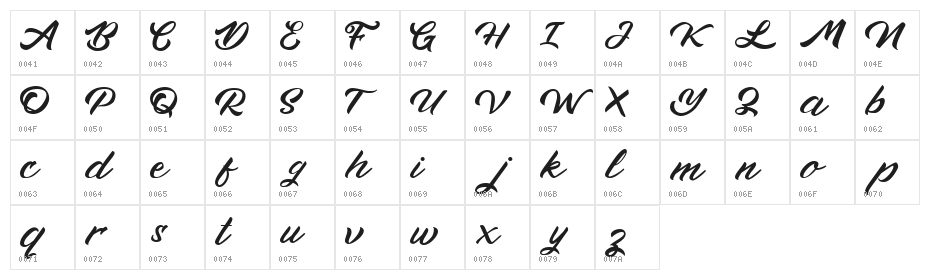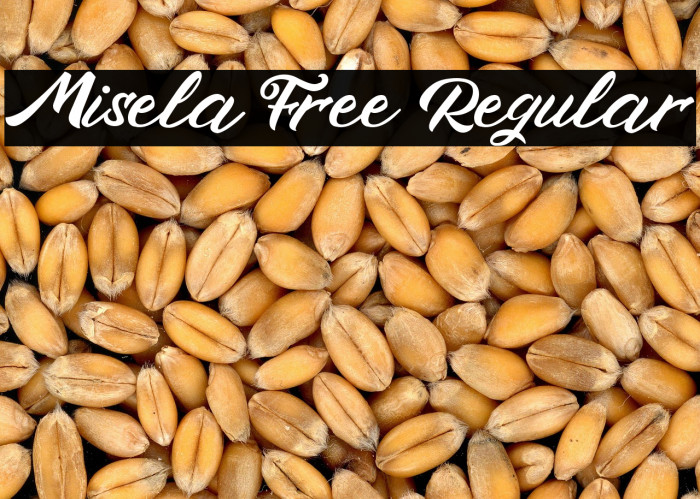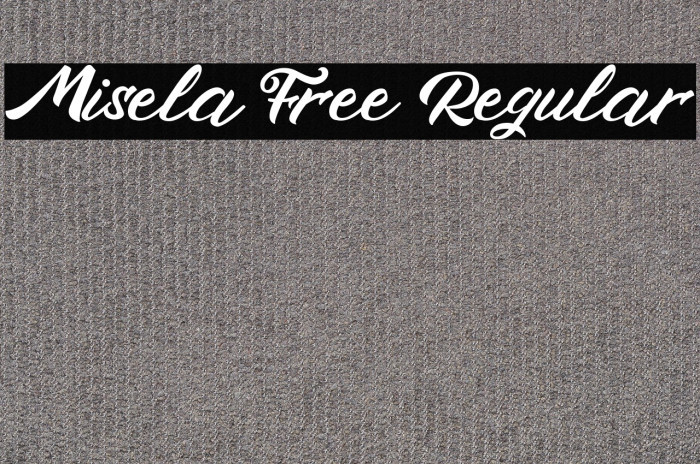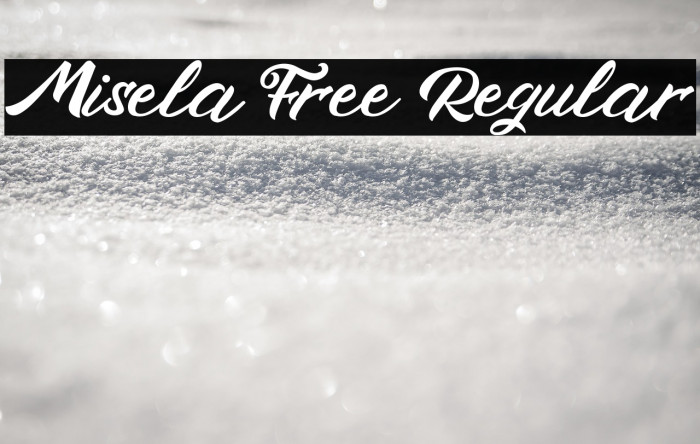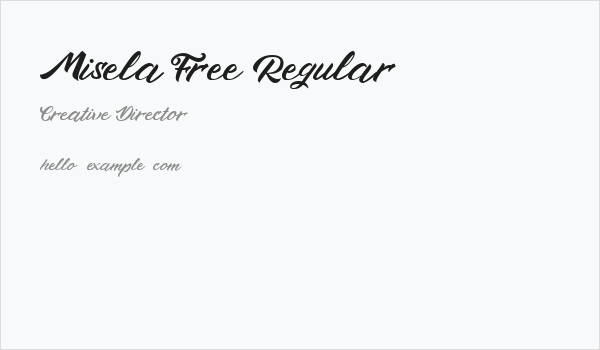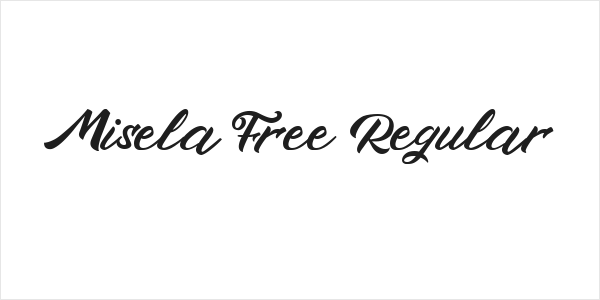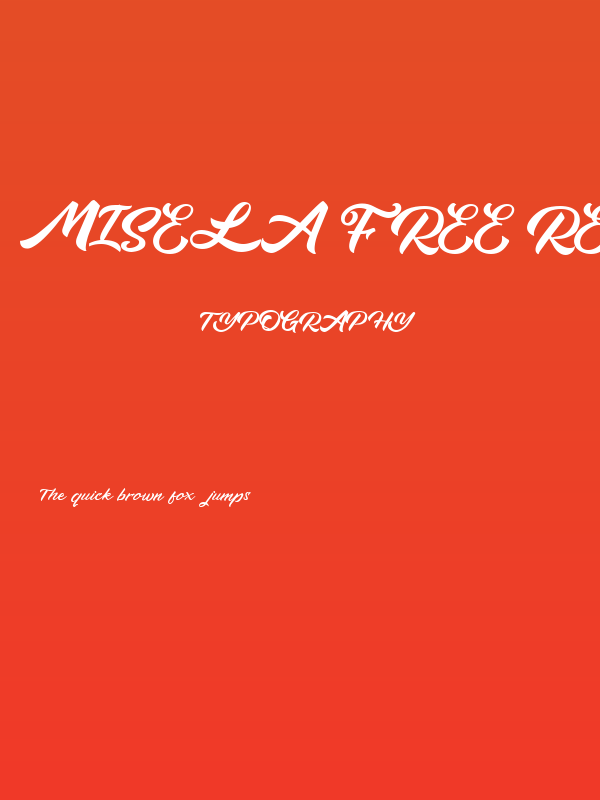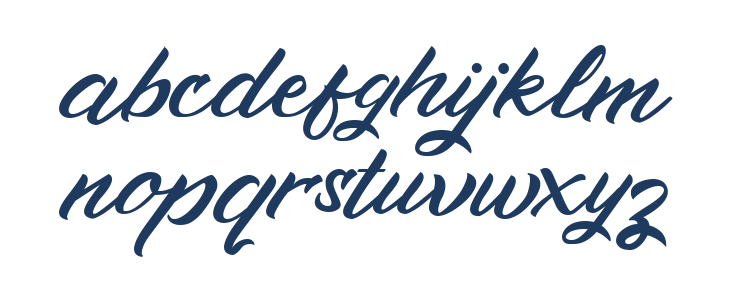
Misela Free Regular Font
Misela Free Regular Description
This font features a flowing, cursive style with elegant, sweeping strokes that give it a sophisticated and artistic appearance. The characters are connected, creating a seamless and fluid look. The uppercase letters are bold and prominent, while the lowercase letters maintain a consistent flow, enhancing readability. The overall design is reminiscent of classic calligraphy, with a modern twist that makes it suitable for a variety of design applications. The font's unique style is both decorative and functional, making it ideal for projects that require a touch of elegance and flair.
| Proposed Projects | Ideal for wedding invitations, greeting cards, branding, and elegant packaging designs. |